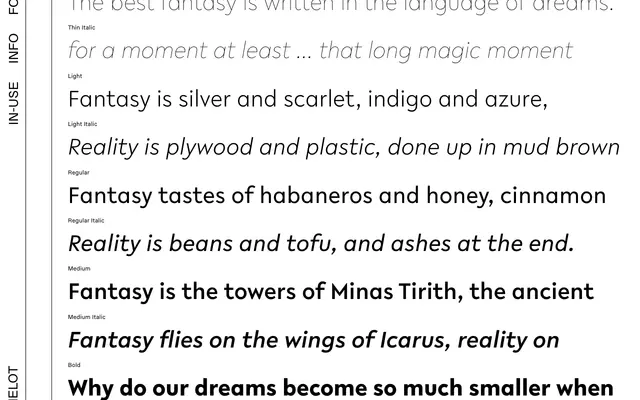
Lelo
Camelot · Katharina Köhler
A geometric sans with typewriter heritage, designed by Katharina Köhler, distinguished by pointed terminals in diagonal letters set against otherwise circular forms.
Designed by Katharina Köhler, Lelo draws on early 20th century grotesques while retaining traces of its origins in a quattro-spaced typewriter font, with Letter Gothic cited as a direct influence. The tension between the sharply pointed endings on V, W, N and M and the broadly circular geometry of other letters gives the family a distinctive internal contrast. Six weights run from Thin to Black with matching italics, and a monospaced variant, Lelo Mono, extends its utility to coding and tabular contexts.
Described explicitly as a geometric sans serif with roots in early 20th century grotesques, influenced by Letter Gothic's typewriter origins, giving it a geometric-grotesque hybrid character.